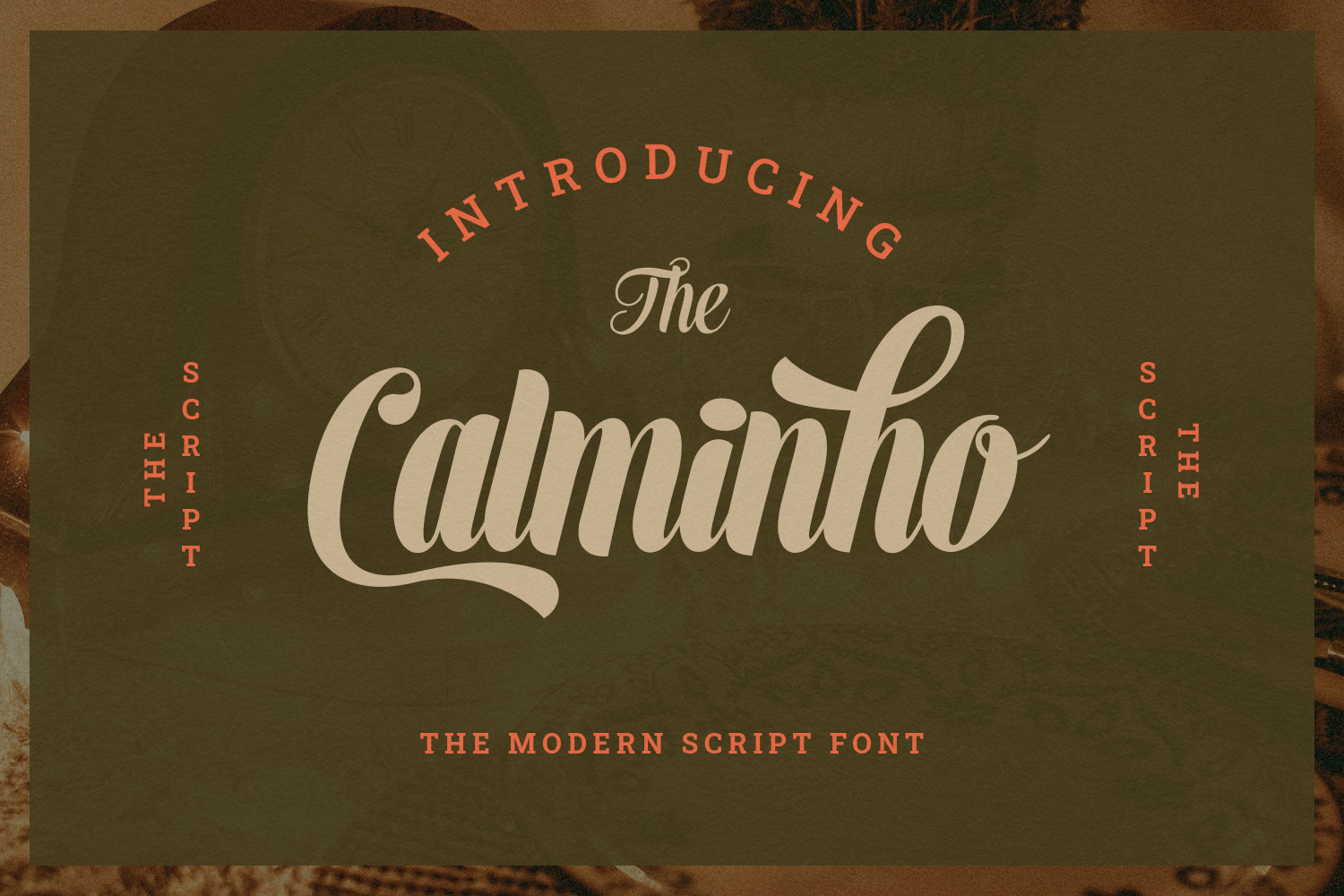
Calminho Bold Script Font
Introduce you new item in my store – Calminho Bold Script Font
This font is ideal for branding and decorate your any project, are perfect for wedding invitation or your blog. Also with their help, you can create a logo or beautiful frame for your home. Or just use for your small business, book covers, stationery, marketing, magazines and more. Use only capitals for headers or quotes, it looks strong and refined, or use Caps with lowercase for block texts, or subheaders.